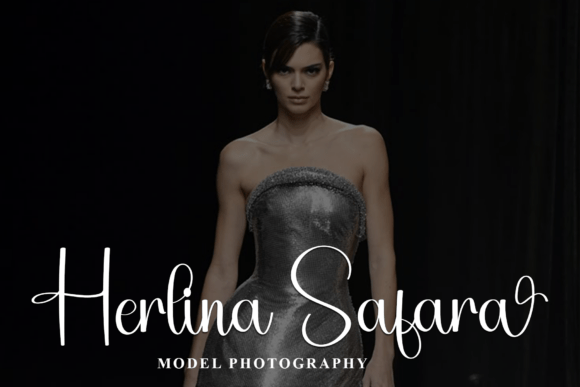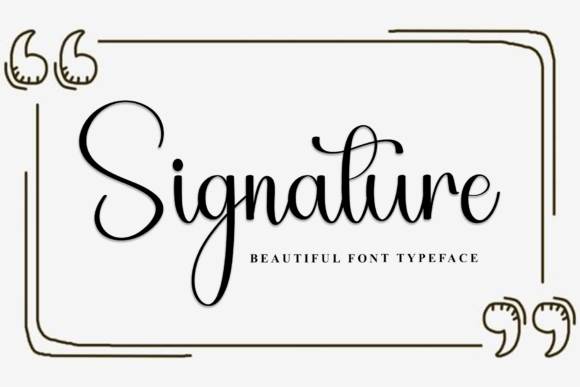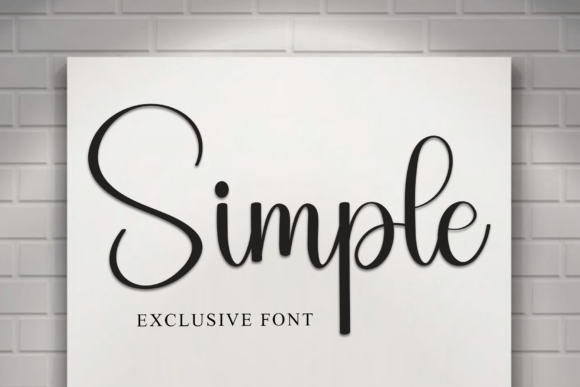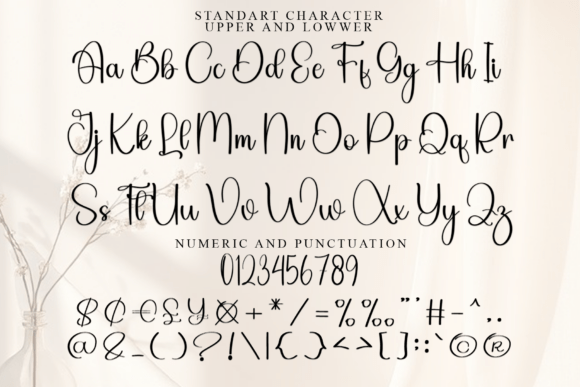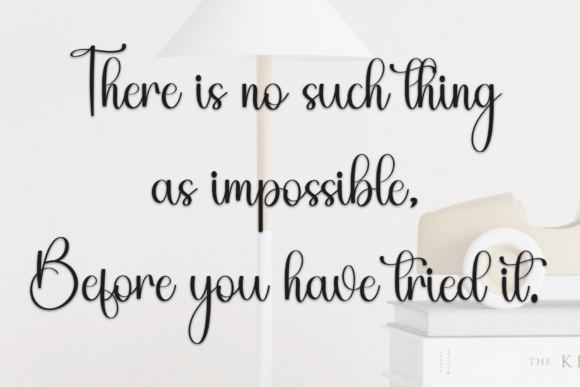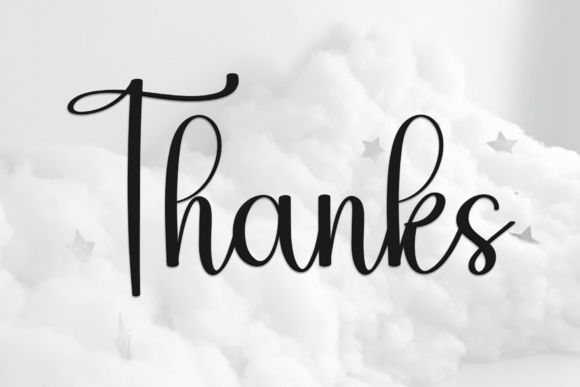
The Quest for the Perfect Font: Discovering Angela Birthday
I’ll never forget the time I was working on a birthday card design project, and I just couldn’t find the right font. My client wanted something that was both playful and elegant, but everything I tried seemed to fall flat. That was until I stumbled upon Angela Birthday, a beautiful and eye-catching font that has since become a staple in my design toolkit.
A First Impression: What Makes Angela Birthday Special
Angela Birthday is a font that stands out from the crowd, with its soft, unique touch and distinctive strokes that give it a special character. This font is not just a collection of letters; it’s a design element that can elevate your projects and make them more engaging. Whether you’re working on a design project, crafting, or other creative endeavors, Angela Birthday is a versatile choice that can adapt to various styles and themes.
So, what do I love about Angela Birthday? Here are a few things that make it shine:
- ✨ Unique and eye-catching design: The font’s soft, rounded edges and distinctive strokes make it a standout in any design.
- ✅ Highly versatile: Angela Birthday can be used for a wide range of projects, from birthday cards to posters, and even digital graphics.
- 🤔 Some characters may require manual kerning: Depending on the project, you might need to adjust the spacing between certain characters to get the best results.
- ⚠️ Limited availability of stylistic alternates: While Angela Birthday has a range of characters, it may not offer as many stylistic alternates as some other fonts.
One of the best things about Angela Birthday is its support for OpenType features and glyphs. Here are a few tips for getting the most out of these features:
The Story Behind Angela Birthday
Angela Birthday was designed with the intention of creating a font that was both beautiful and versatile. The designer wanted to create a font that would be perfect for a wide range of projects, from birthday cards to posters and digital graphics. With its unique and eye-catching design, Angela Birthday has become a popular choice among designers and crafters.
| What is Angela Birthday? | Angela Birthday is a beautiful and eye-catching font designed with a soft, unique touch. |